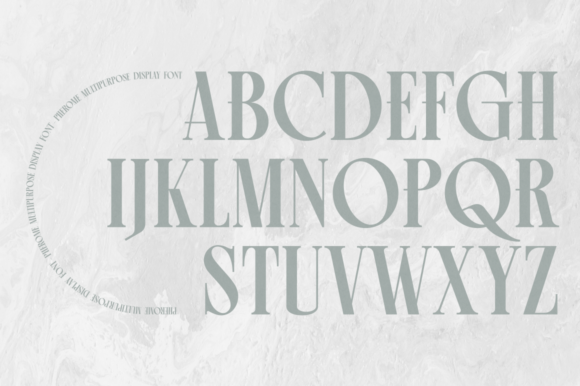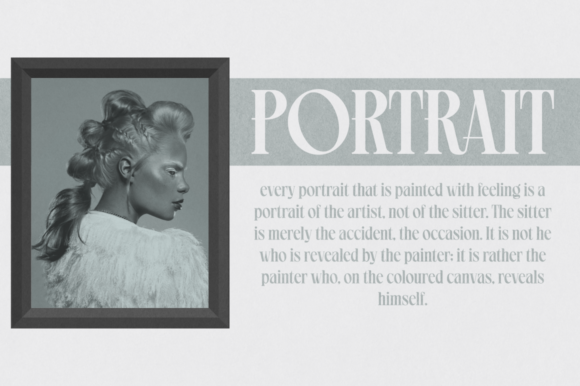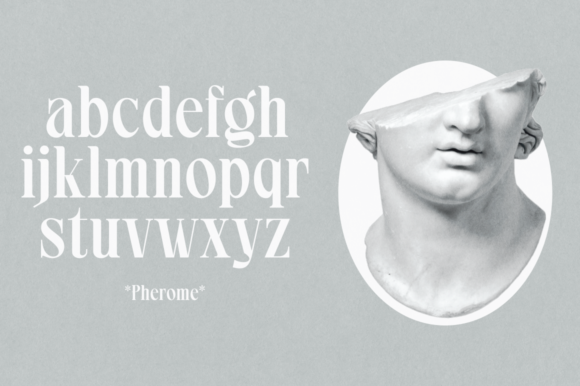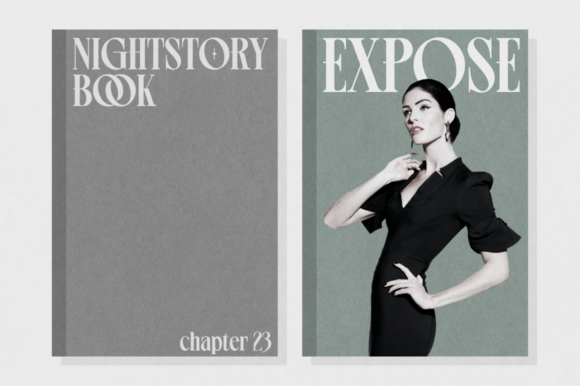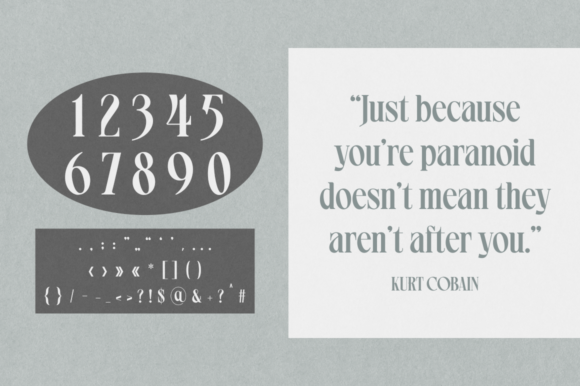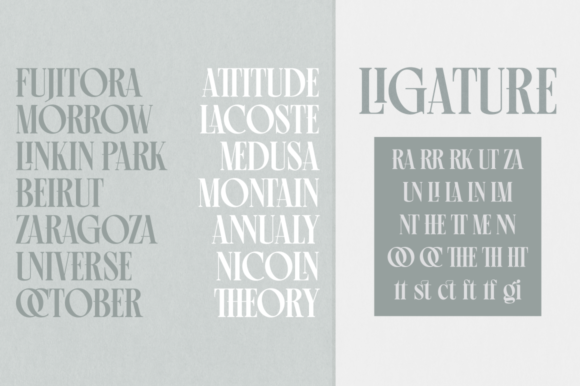
Introduction to Pherome Font
| 👤 Author | zealab fonts division |
One font that’s sure to spark that creative magic is the Pherome Font. This stunning, modern serif font is designed to elevate your projects to the next level. With its perfect balance of elegance and sophistication, Pherome Font is the perfect design resource for any creative project.
Key Features of Pherome Font
- Pherome Font is a high-quality design resource ideal for creative projects, offering a unique and modern aesthetic.
- Pherome Font is available in 5 different weights, including Light, Regular, Medium, Bold, and Black, providing flexibility for various design needs.
- Designed with a focus on legibility and readability, this font is perfect for use in body text, headings, and titles.
- With its clean and minimalist design, Pherome Font is an excellent choice for designers looking for a professional and sophisticated look.
Honest Review: Pherome Font
I recently stumbled upon the Pherome Font and was excited to dive in and explore its features. As a designer, I’m always on the lookout for high-quality design resources to elevate my creative projects.
Here are some things that work well: ✨
- Unique Style: Pherome Font offers a distinctive and modern aesthetic that’s perfect for adding a touch of sophistication to any design project.
However, I did encounter some limitations: ⚠️
- Limited Font Family: Pherome Font currently only offers a single font style, which may not be ideal for projects that require a range of font options.
- Not Ideal for Large Text: While Pherome Font looks great in small to medium-sized text, it may not be the best choice for large headings or titles.
Overall, I was impressed with the Pherome Font’s potential, but I’d love to see more font styles and a more comprehensive feature set in future updates. Despite its limitations, it’s still a solid choice for designers looking for a unique and high-quality free download for their creative projects.
Pherome Font
Tips for Getting the Most Out of Pherome Font
To maximize the use of Pherome Font, experiment with different font sizes, styles, and colors. Combine it with other design elements to create a unique and eye-catching design.
Pherome Font is ideal for various creative projects, including graphic design, logo creation, and typography-based designs. Its versatility and high-quality design make it a popular choice among designers.